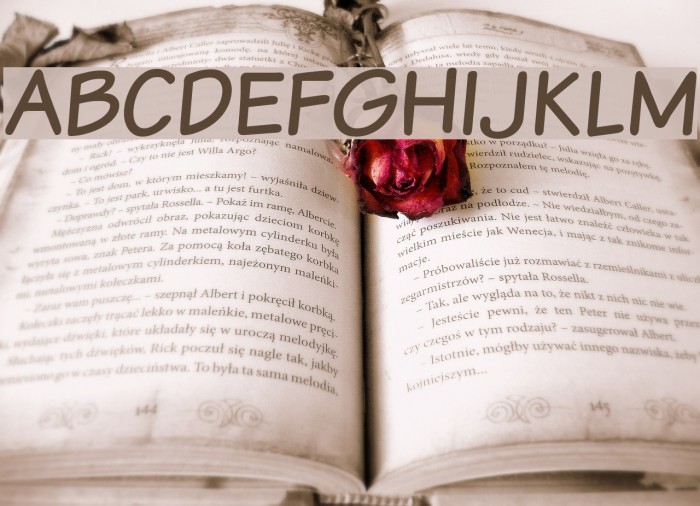
VTCSundaykomix Font
This playful and bold font features rounded, hand-drawn characters that exude a casual and friendly vibe. The letters have a slightly uneven baseline, adding to the informal and whimsical appearance. The strokes are consistent in thickness, giving the font a cohesive look while maintaining a sense of spontaneity. Its legibility is high, making it suitable for various applications where a fun and approachable tone is desired. The numerals and special characters are designed to match the playful style, ensuring a uniform look across all text elements.
A playful, hand-drawn font with rounded characters and a casual vibe.
- Proposed Projects: Ideal for comic strips, children's books, playful branding, and informal invitations.